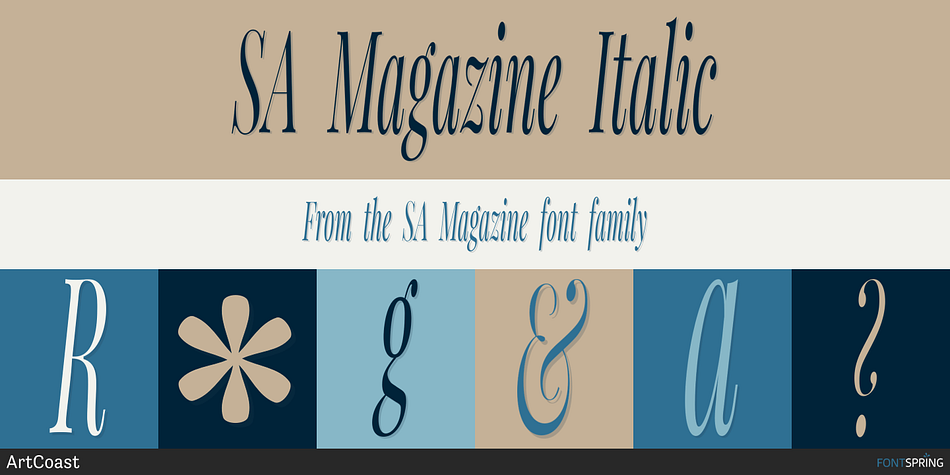
SA Magazine Italic
SA Magazine is a display serif, serif and wood type font family. This typeface has two styles and was published by ArtCoast.
SA Magazine is a typeface that features a classic serif design with bold serifs of varying widths, which gives it a shabby and unique look. It is available in both regular and italic styles, making it versatile for use in various design projects.
The font’s bold serifs and overall design make it perfect for creating headlines and titles that grab attention. Additionally, its classic look lends itself well to editorial design, where it can add a touch of sophistication and elegance to text-heavy layouts.
SA Magazine is also suitable for use in monograms, logos, and branding materials, where its distinctive and memorable appearance can help establish a brand’s identity. Its versatility extends to poster design, where it can be used to create bold and eye-catching typography that stands out from the crowd.
SA Magazine is a versatile font that offers a unique and shabby-chic aesthetic that is perfect for a wide range of design projects.